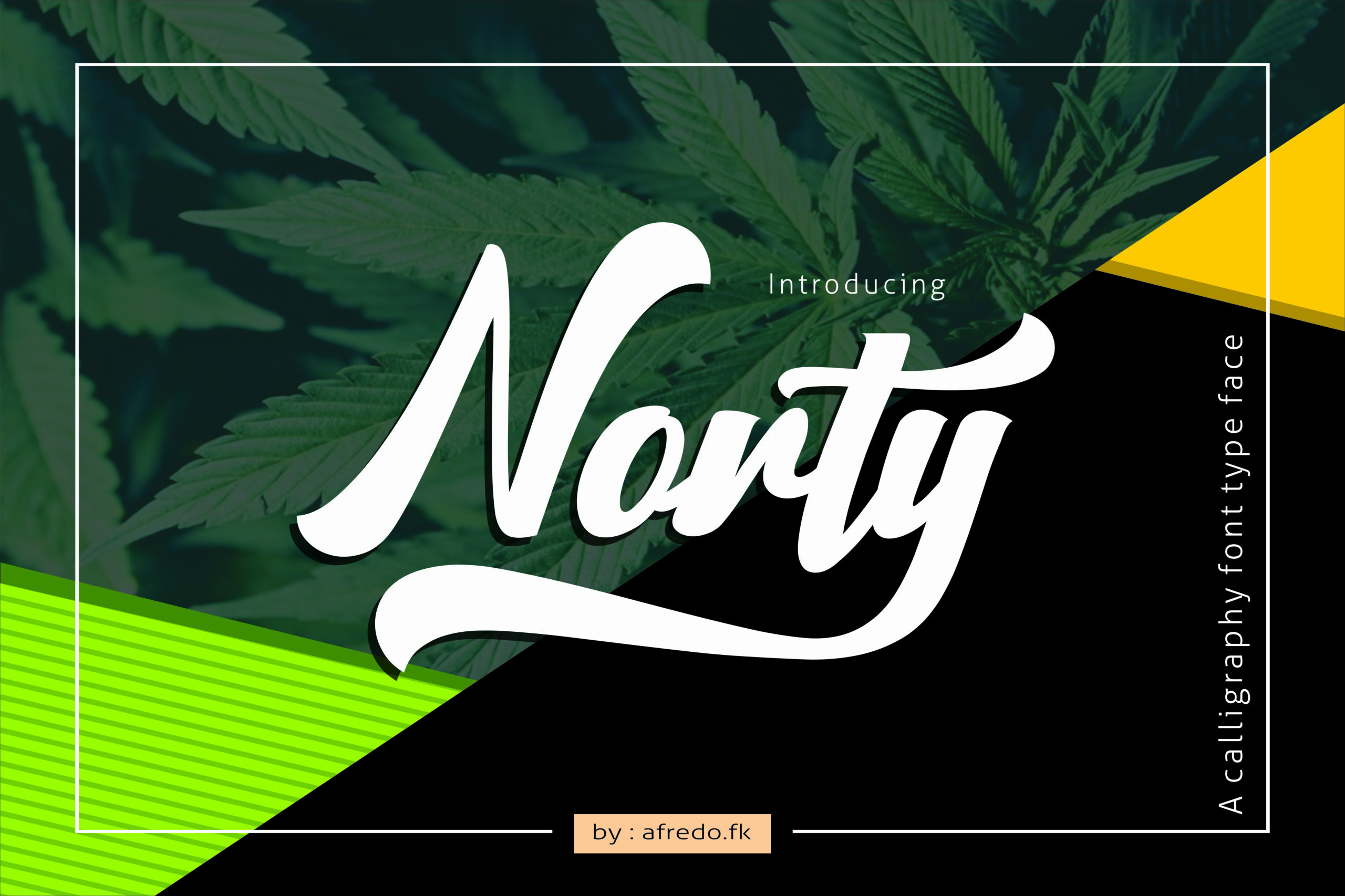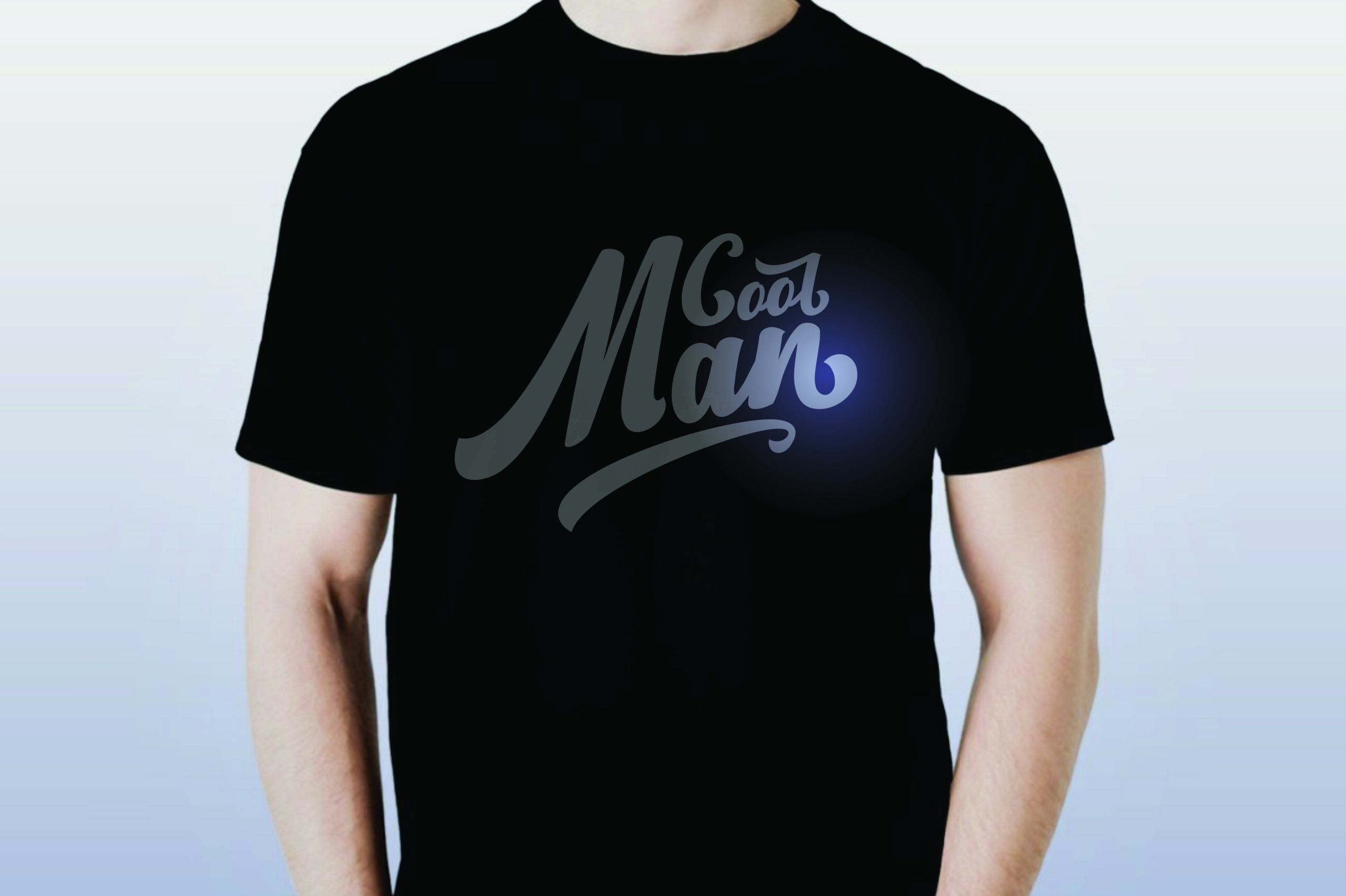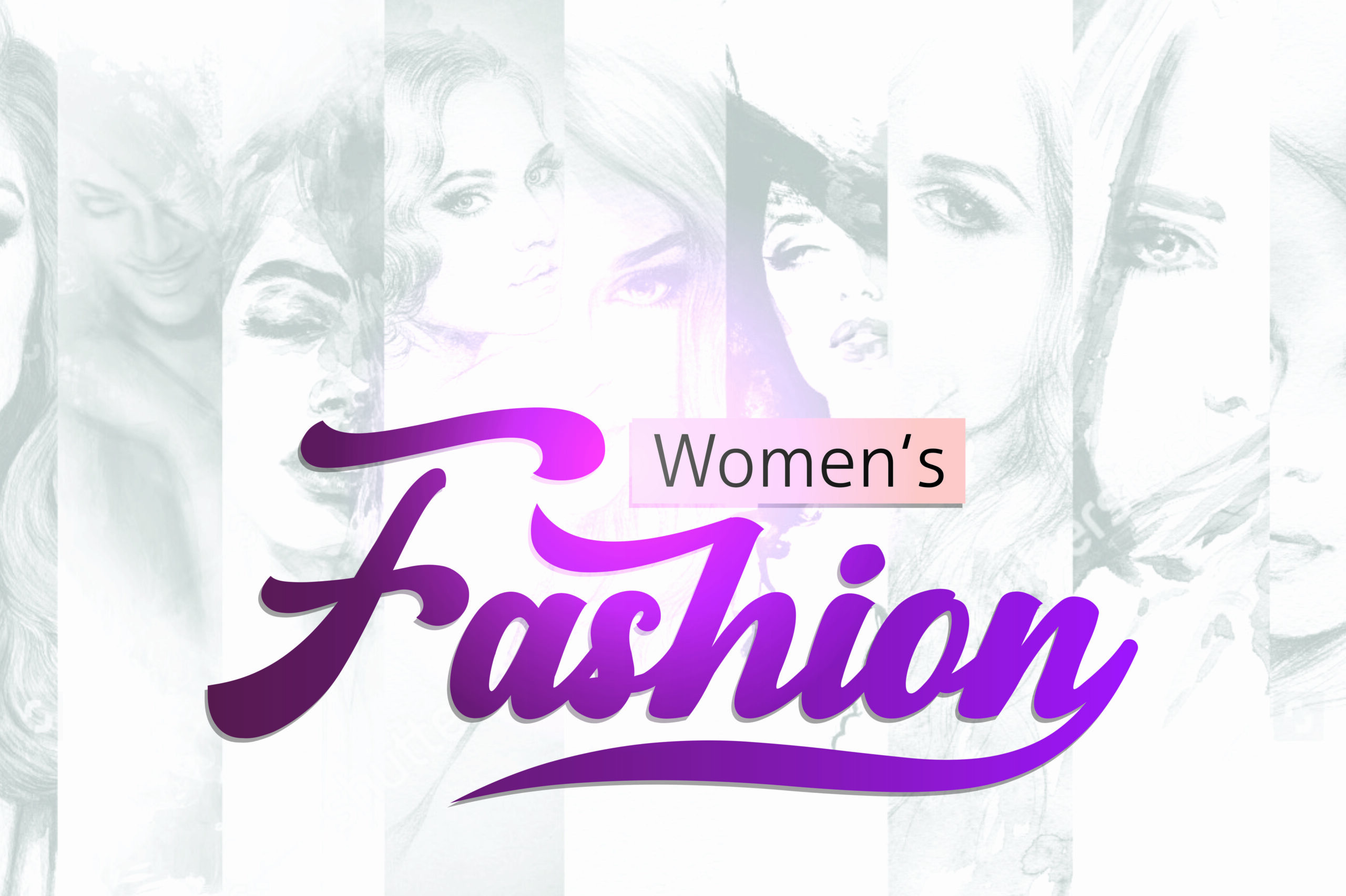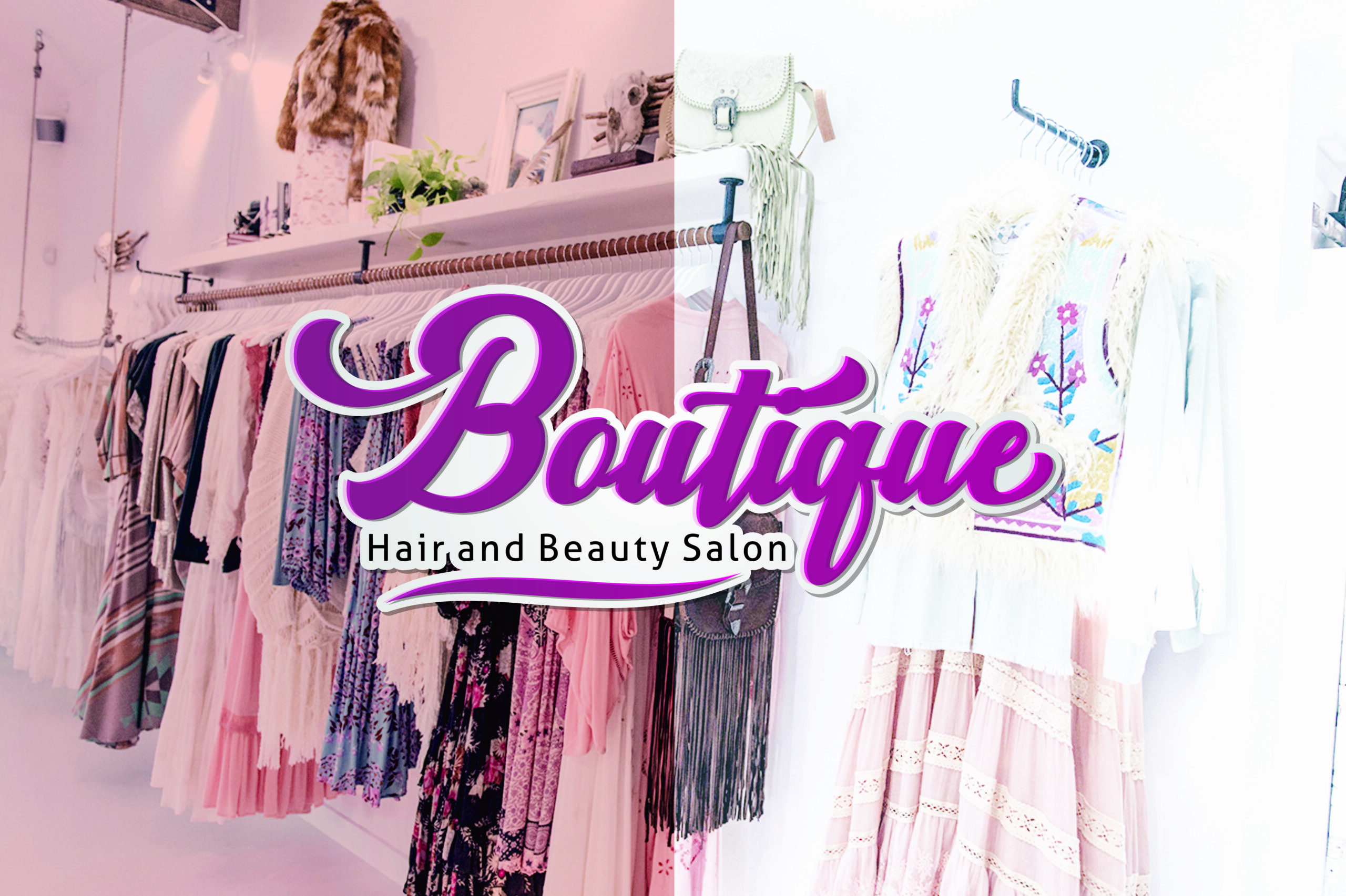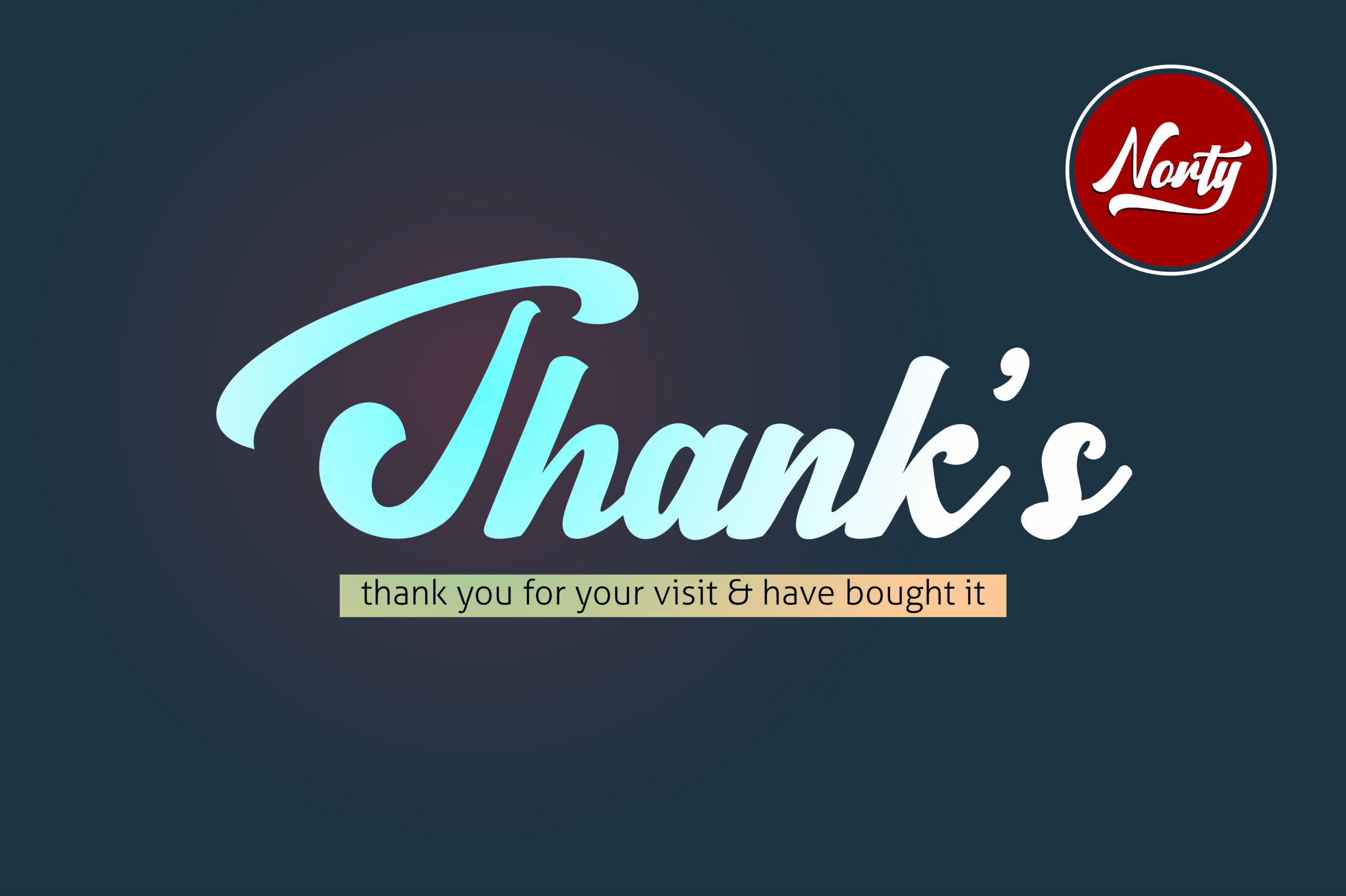
Norty Font
About Norty Font
Norty is a fresh, painterly styled display font that looks perfect in a wide range of designs! This font has a beauty to it that makes it work well in vintage and modernly crafted projects, and reads well so you can use it anytime.